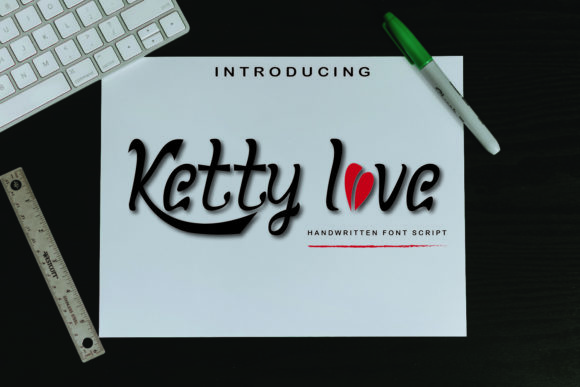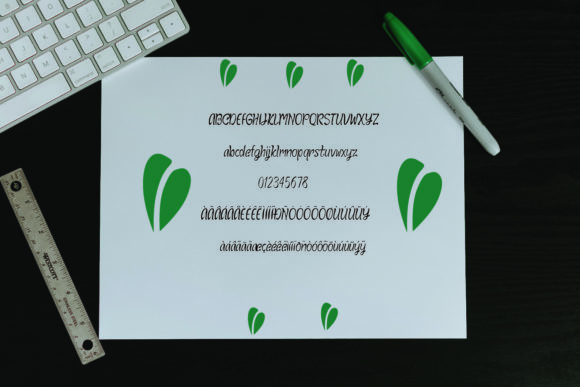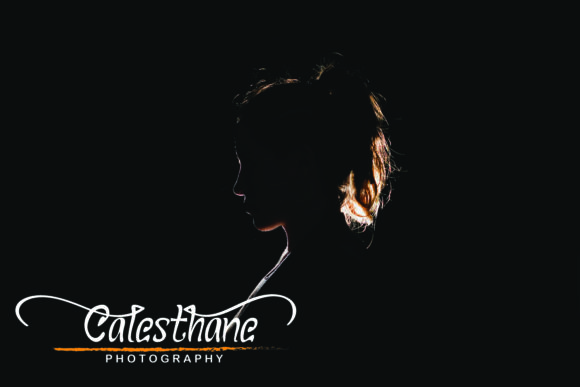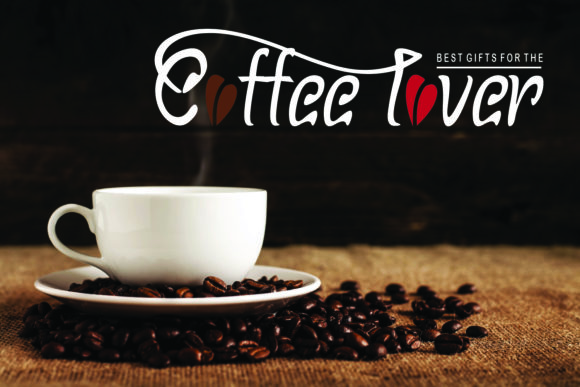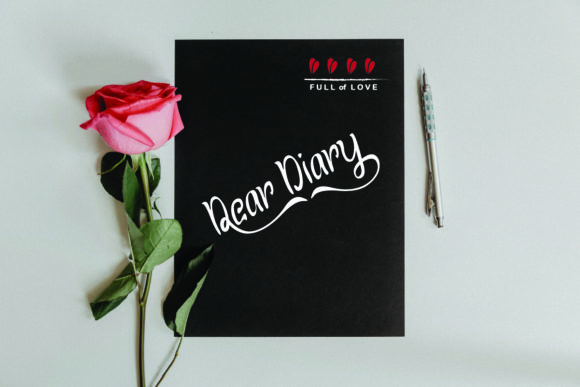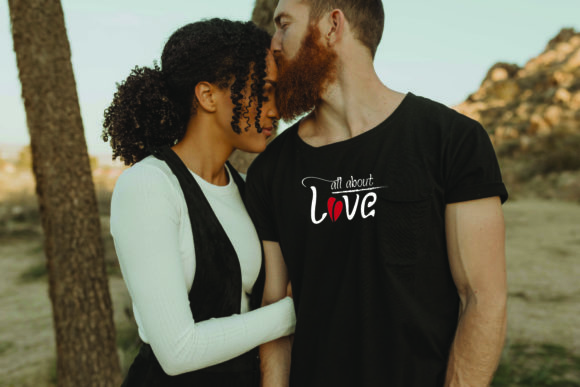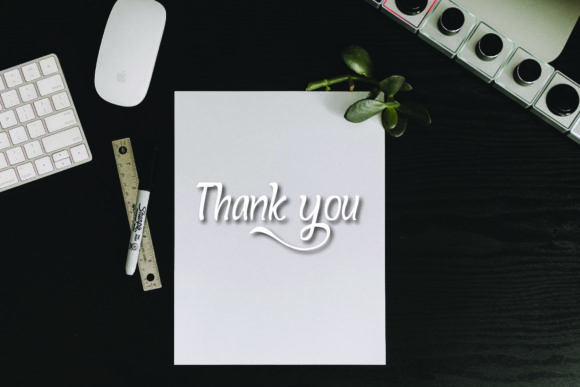
Ketty Love Font
About Ketty Love Font
Ketty Love is an incredibly distinct and delicate handwritten font. Incredibly versatile, this font fits a wide pool of designs, elevating them to the highest levels. Add this font to your favorite creative ideas and notice how it makes them come alive!